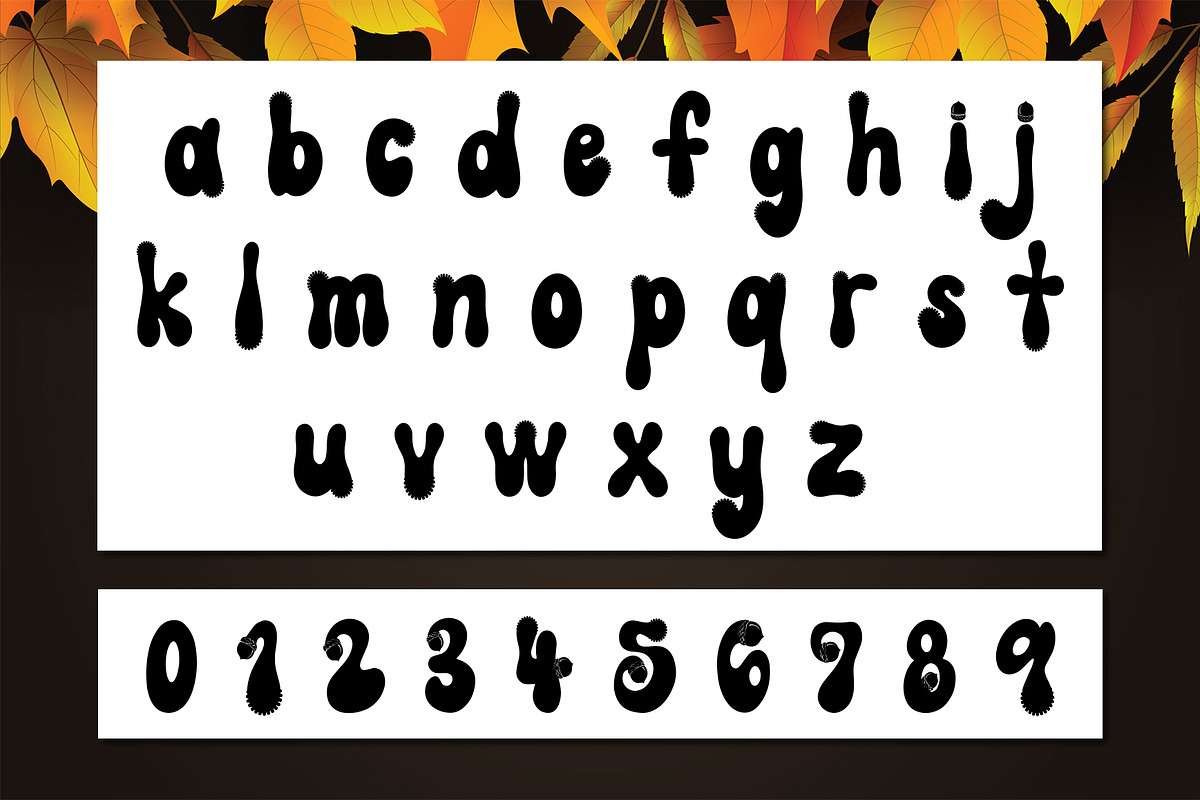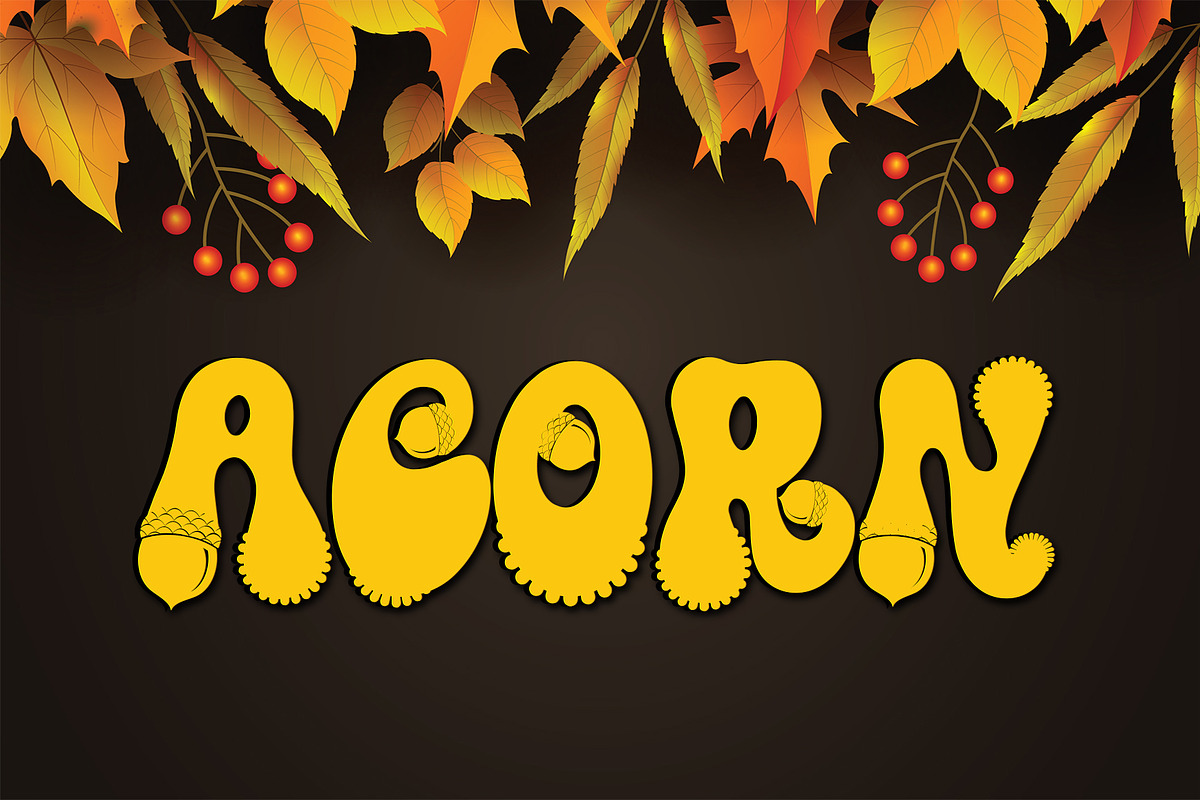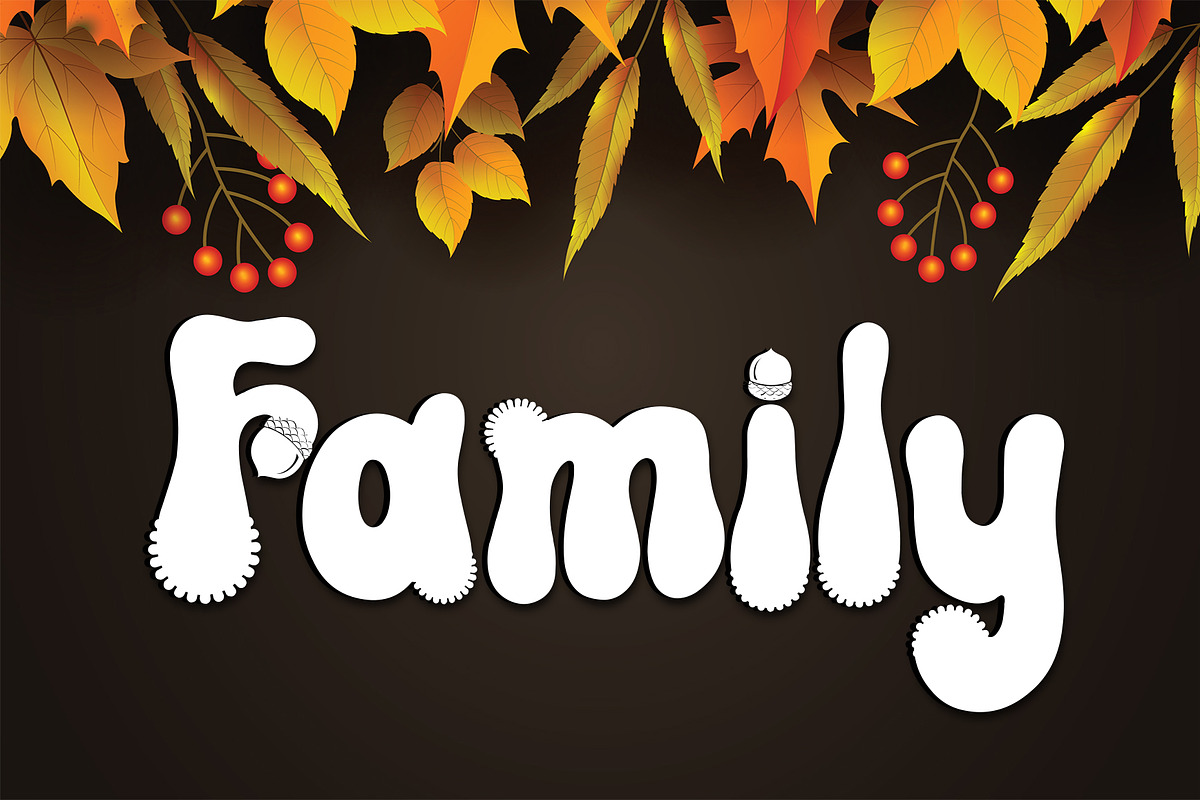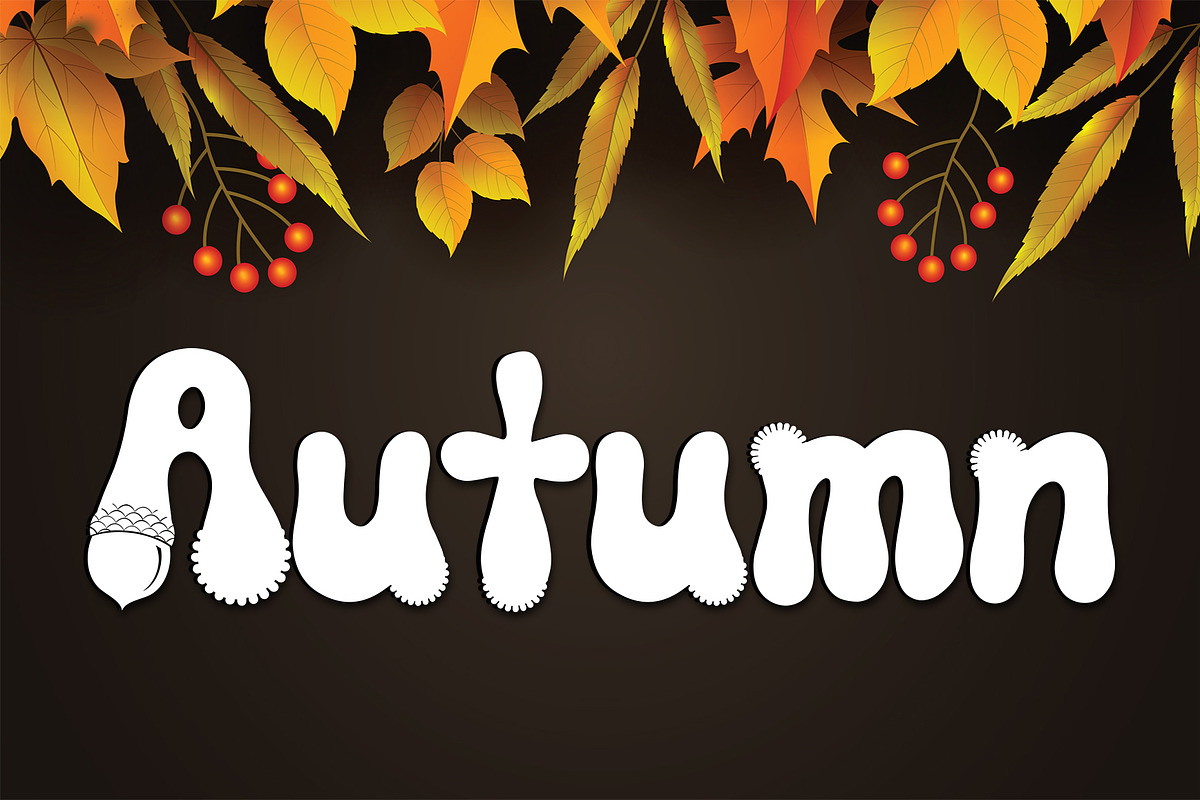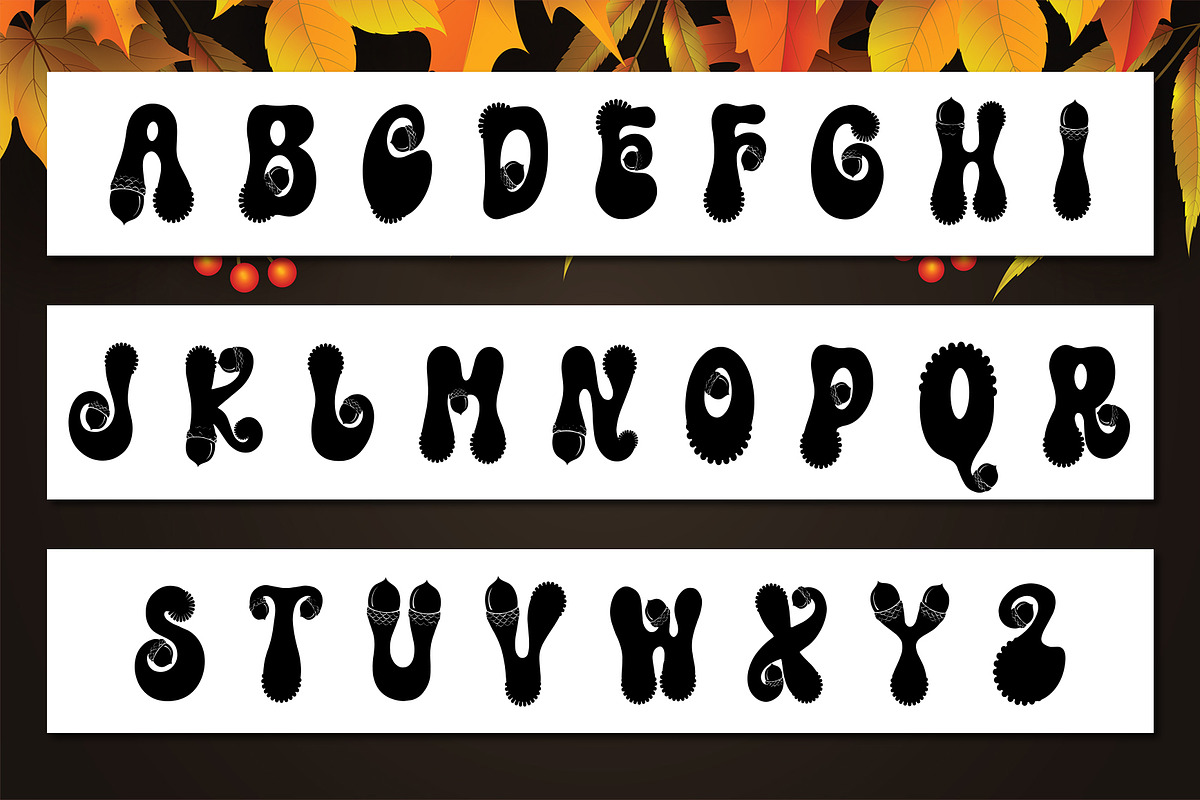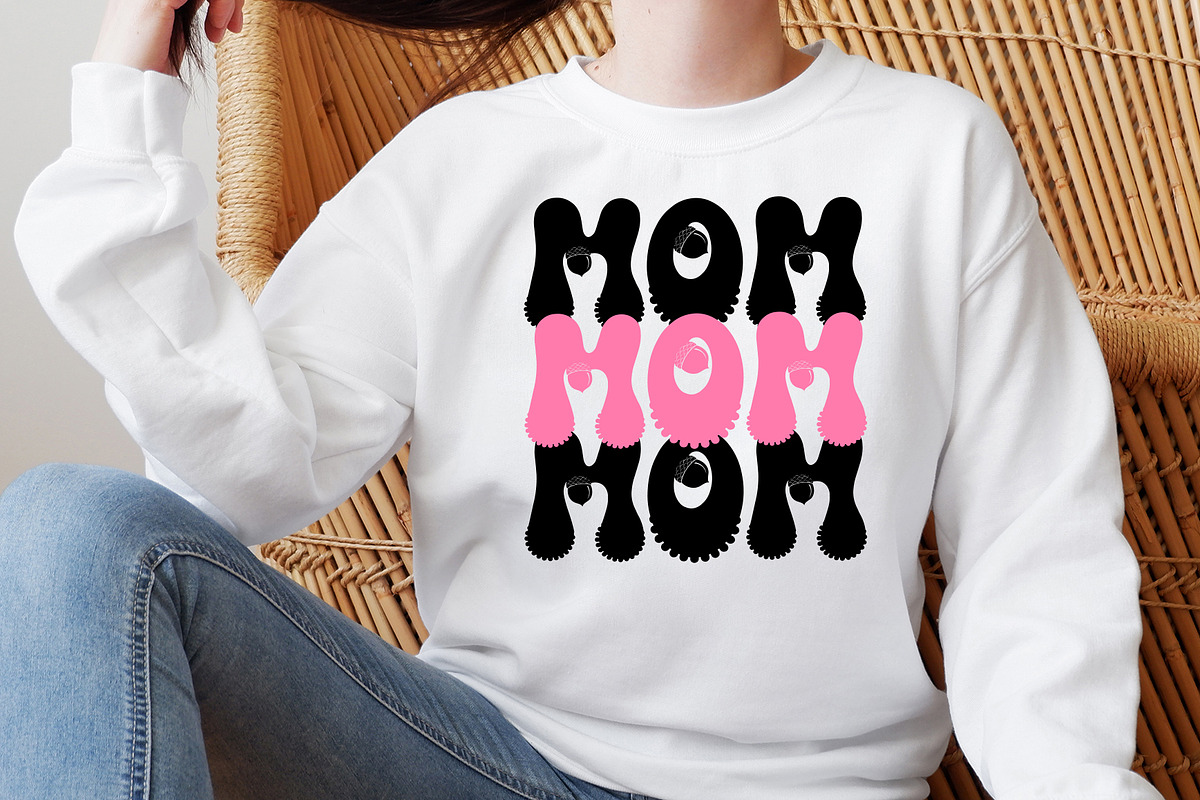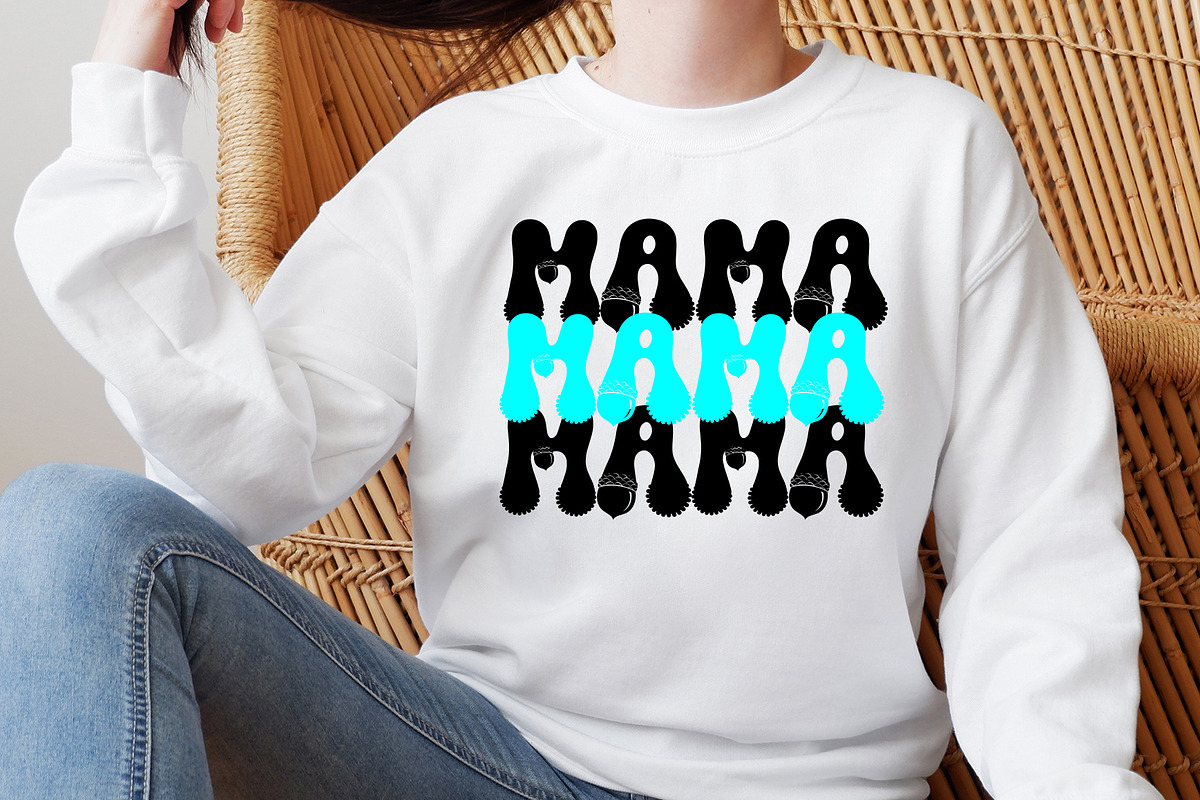
AcornSpecial font
AcornSpecial is a fun styled display font. Use it to add that special touch to any design idea! It can be used for logos, branding, invitations, stationery, wedding designs, social media posts, and more!
There are many interesting alternative styles available to use with this font. These letters are embedded in the font file and are easily accessible in programs like photoshop and illustrator.